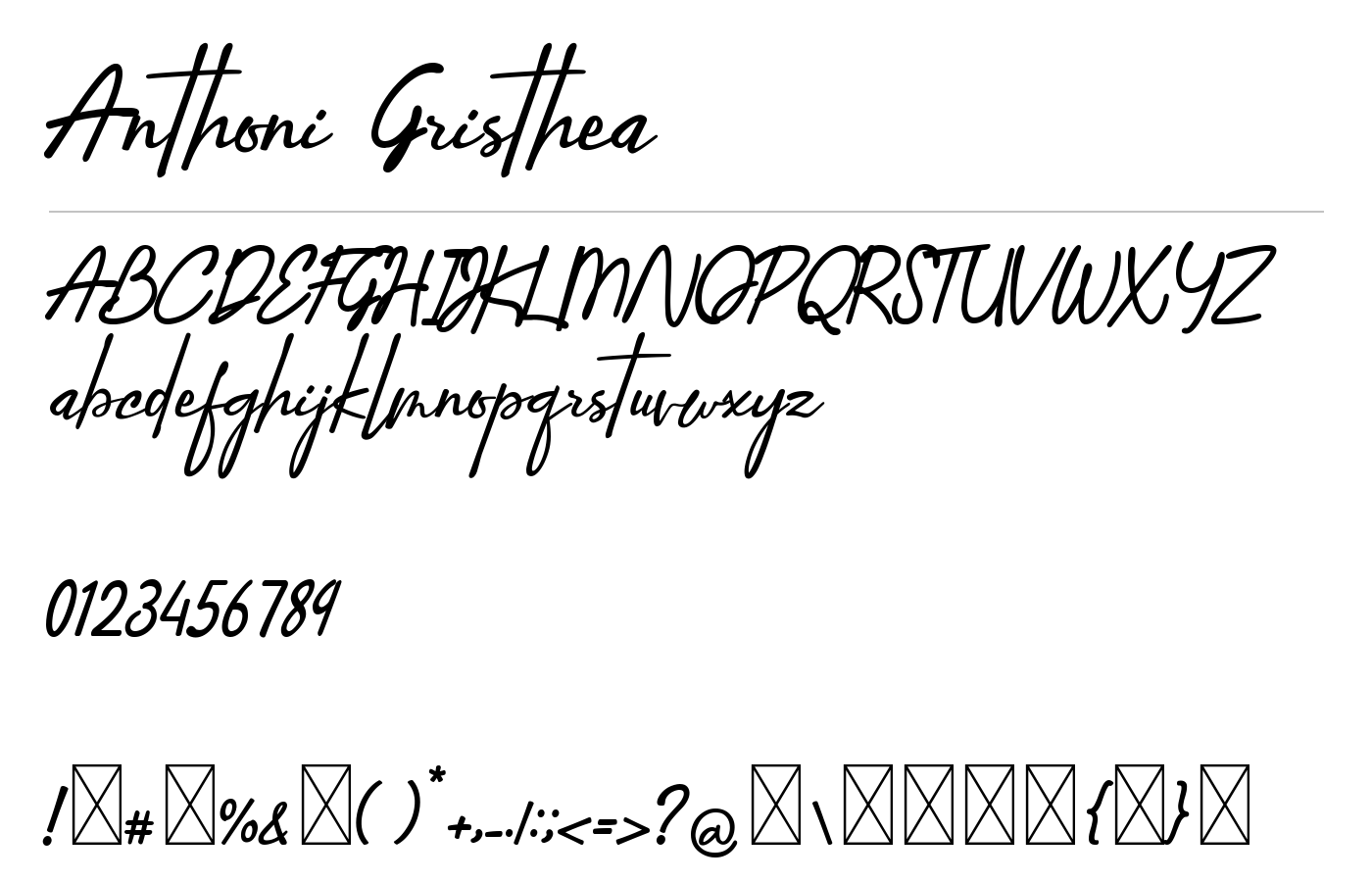
Anthoni Gristhea is a stylish handwritten script font that feels modern and personal, with smooth, flowing strokes and a casual elegance. Its tall, slightly condensed letterforms and consistent stroke weight make it ideal for creative branding, invitations, and logos where a friendly yet refined look is desired. This font works great for adding a handcrafted touch to designs that need both personality and readability.
Anthoni Gristhea Font
About Anthoni Gristhea Font